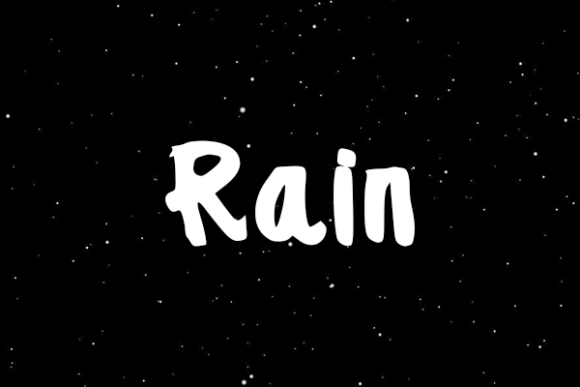
Rain Font
About Rain Font
Rain is a compelling choice for creating eye-catching logos, branding, and quotes. This font stands out with its unique and beautiful touch, ensuring that each letter contributes to making your design come alive. Whether you’re working on a brand identity, a memorable logo, or impactful quotes, Rain adds a distinctive and captivating aesthetic to your creative projects.
The individuality of each letter in Rain contributes to the overall visual appeal, making it a standout option for designs that require a touch of elegance and character. Its versatility allows it to shine in various applications, from logos and branding materials to quotes that demand attention.
In summary, Rain is more than just a font; it’s a design element that brings a unique and beautiful touch to your creative work. Whether used in logos, branding, or quotes, this font enhances the visual impact of your designs, making them stand out and come alive with a touch of sophistication and charm.